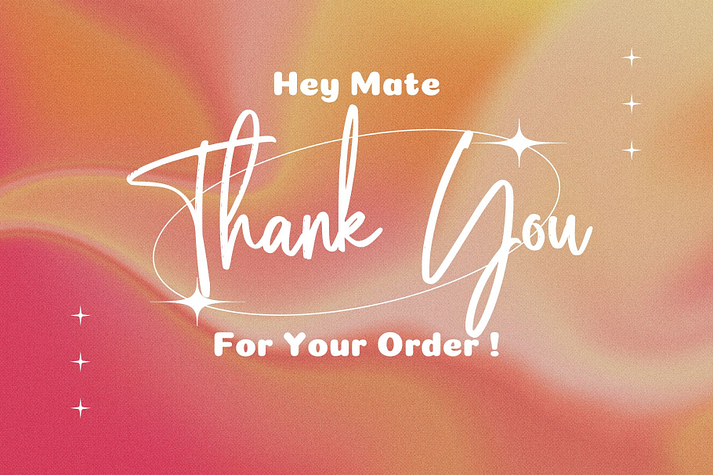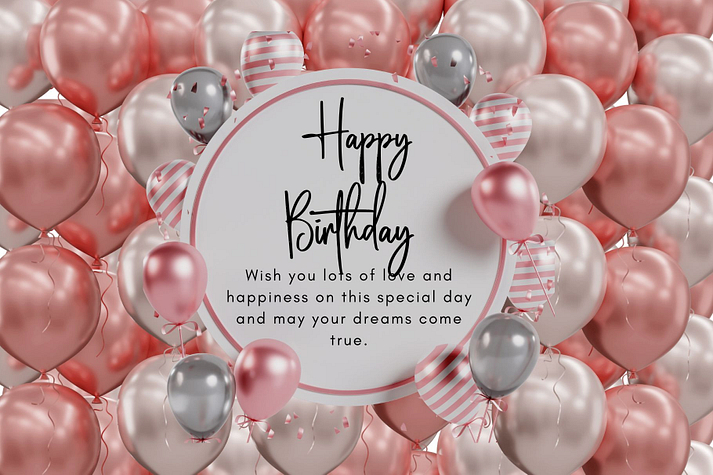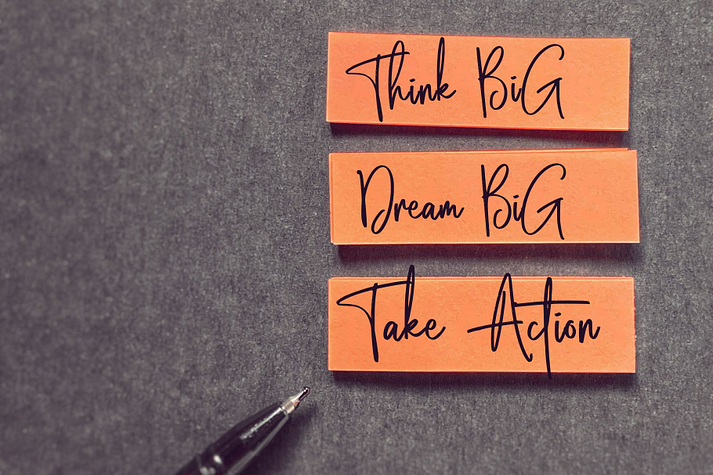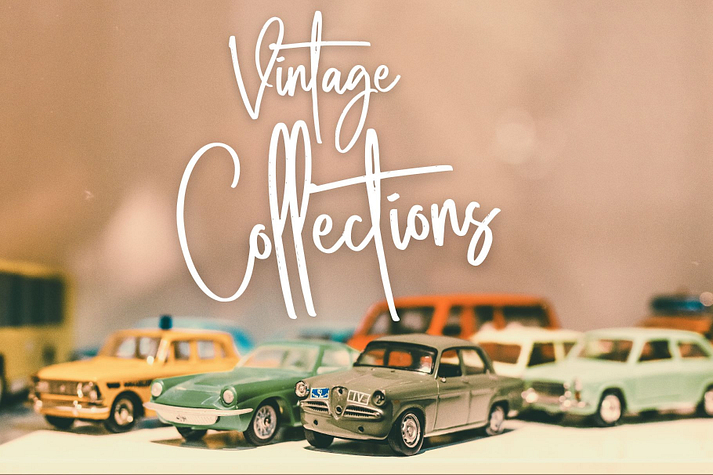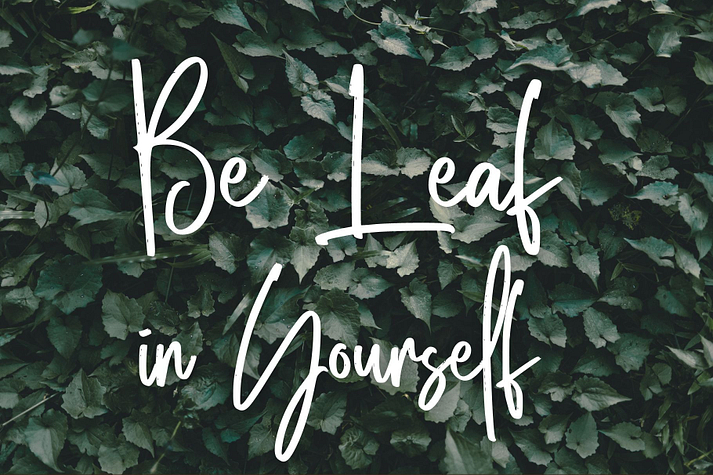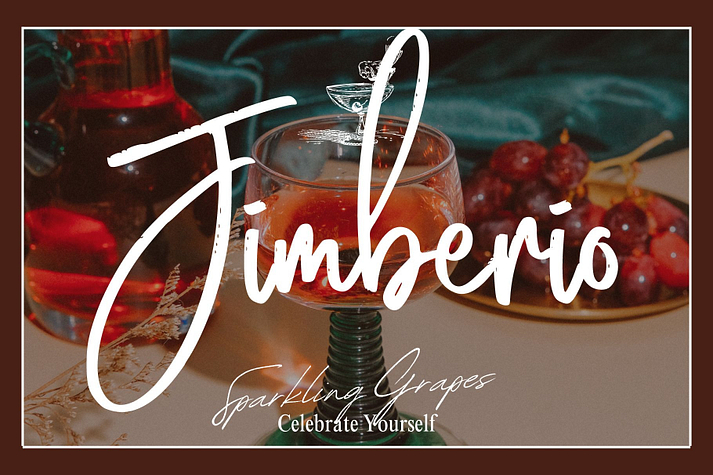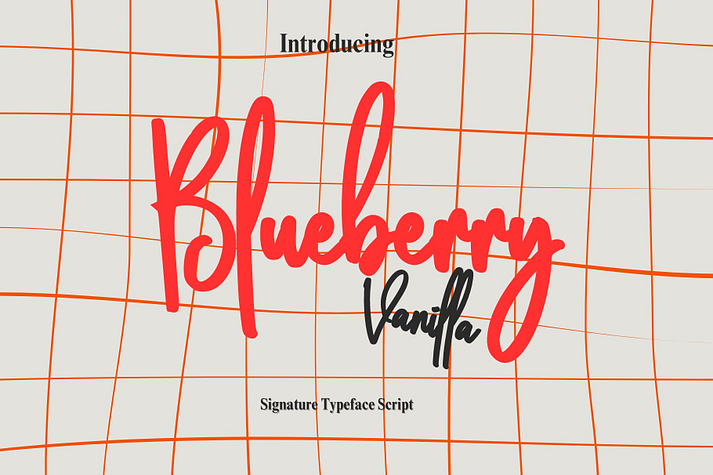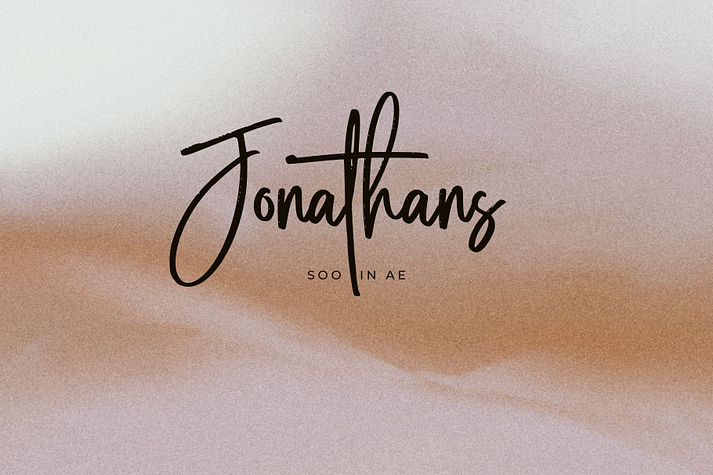
Blueberry Vanilla
Blueberry Vanilla is a font family published by Aditastudios.
Blueberry Vanilla is a very cool signature font in brush style. It is great for branding, packaging, wedding invitation, logos, t-shirt designs, tote bag designs, cards, banners, social media, and more.